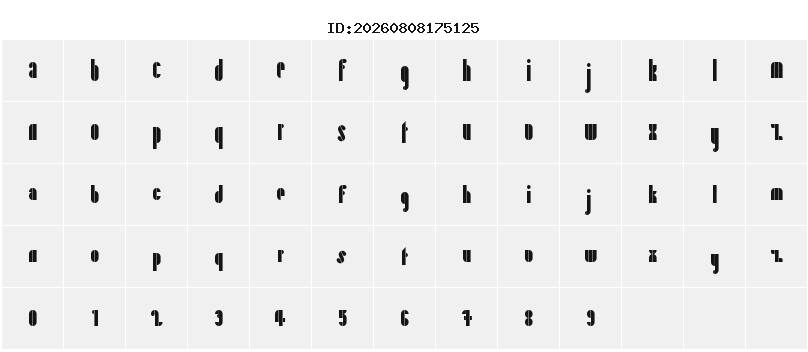
• Font Name: Playing in the Mood
• Designer: imagex
About Playing in the Mood.ttf
Playing in the Mood.ttf is a modern, elegant sans-serif font designed for ultimate readability and visual harmony. Perfect for branding, headlines, web design, and print materials.